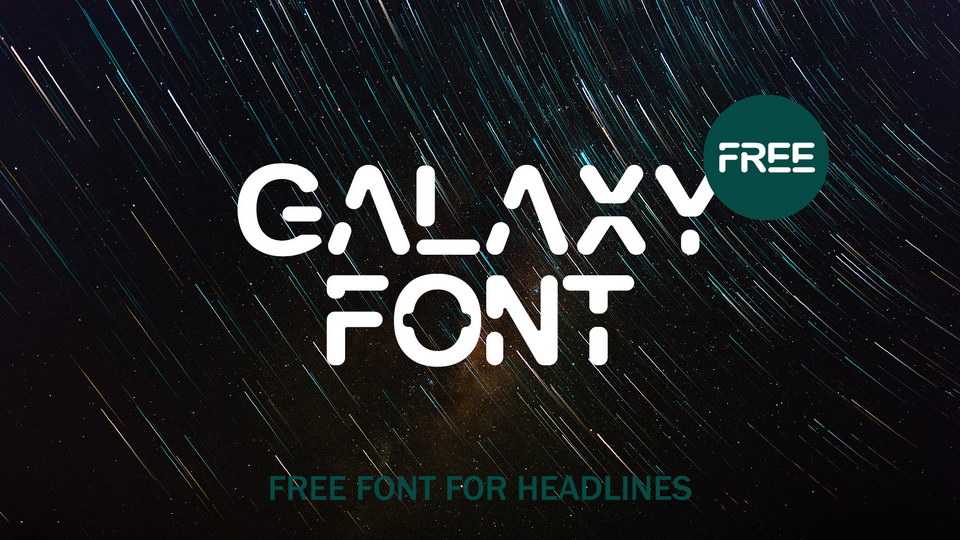
Download Galaxy font, a geometric all caps typeface with a unique futuristic style. Galaxy font is suitable for logos, branding, posters, packaging and other creative type projects.
Designer: Dmitry Baranov